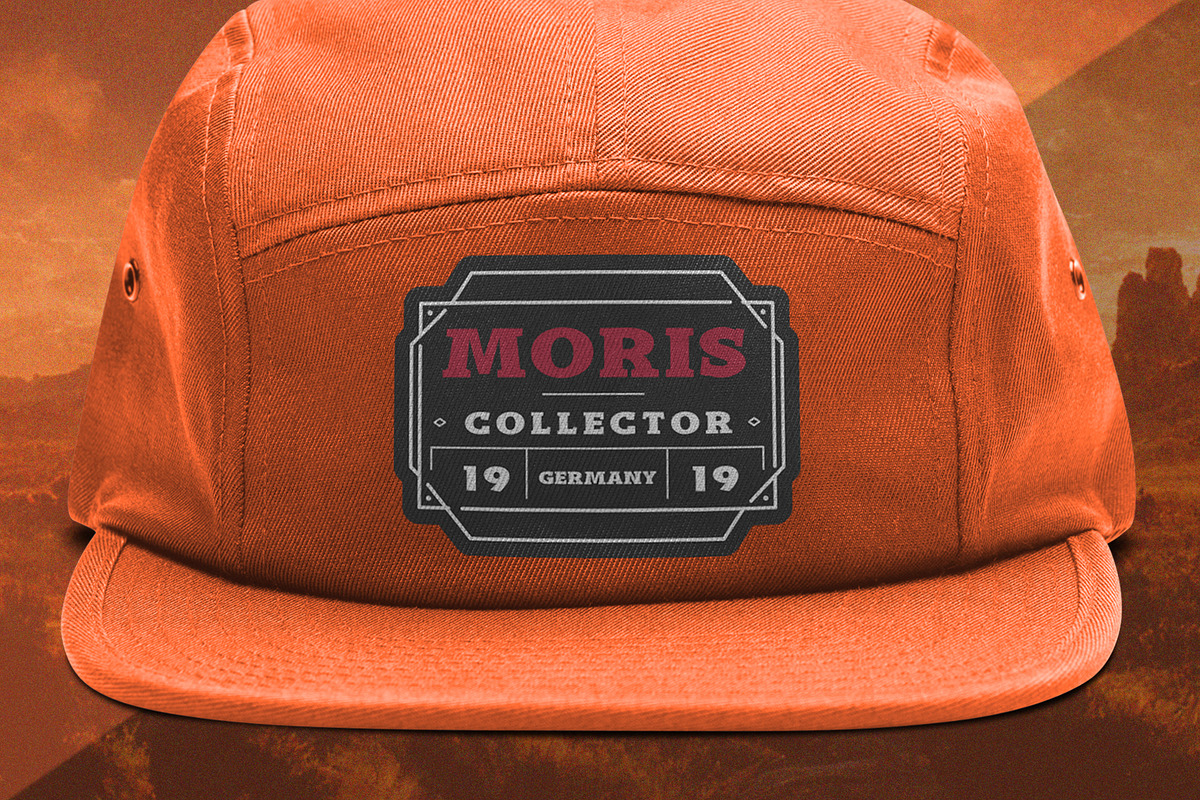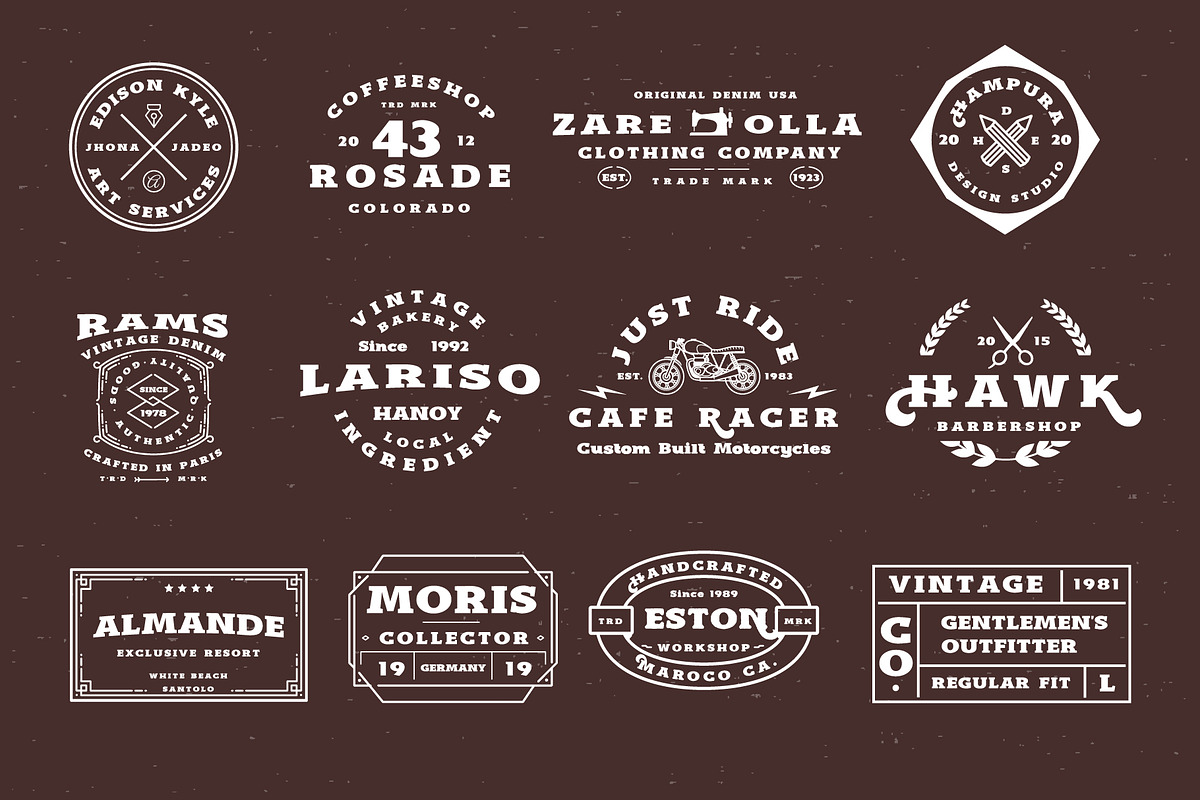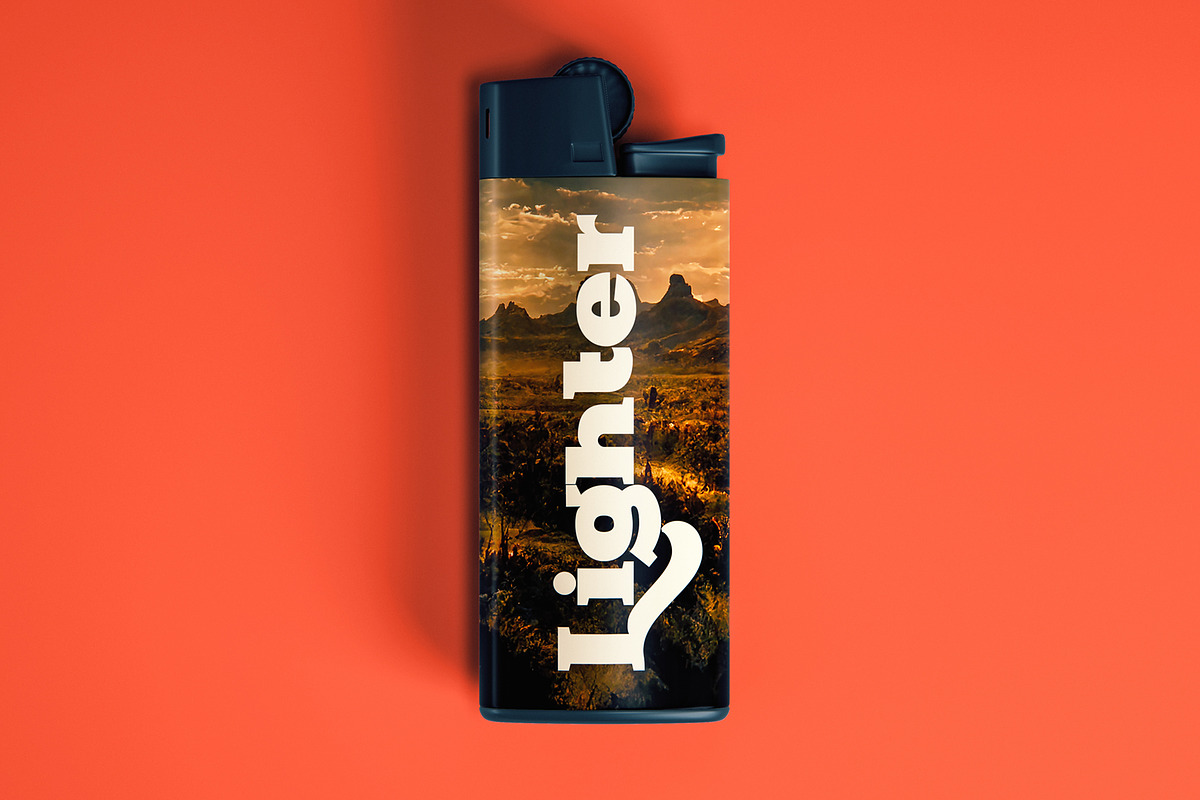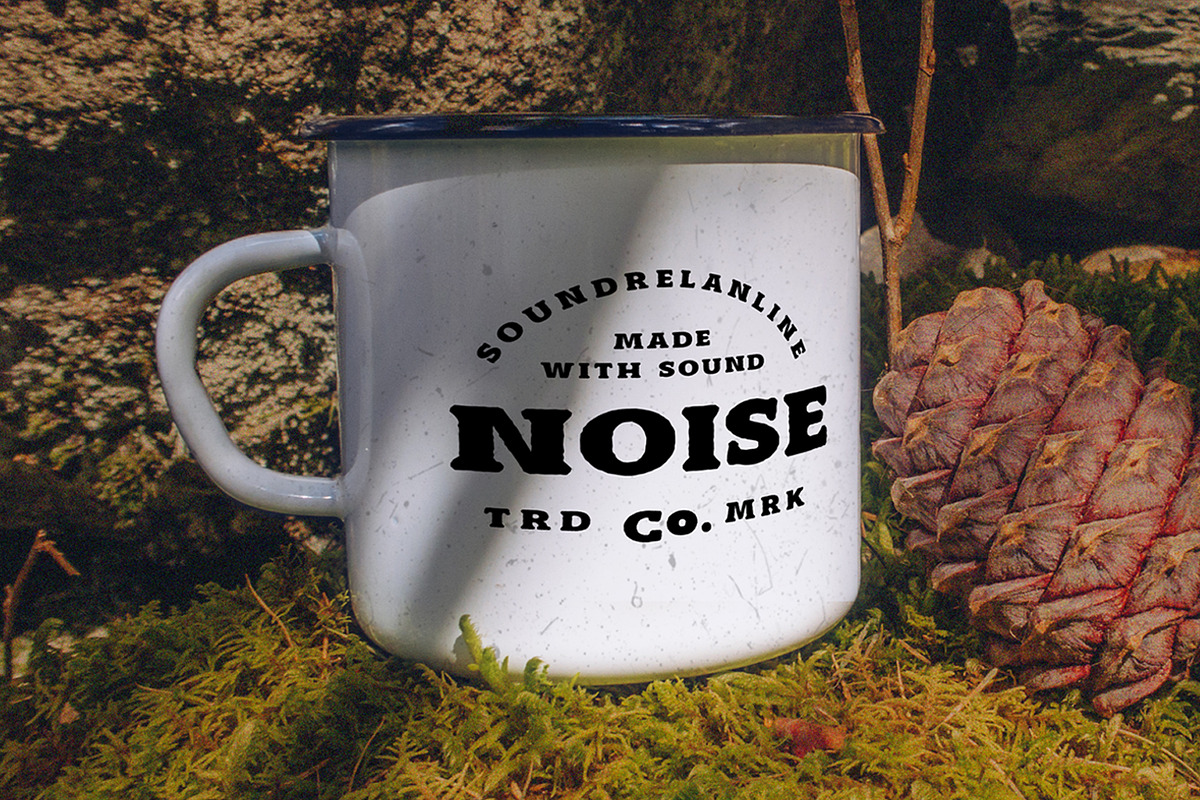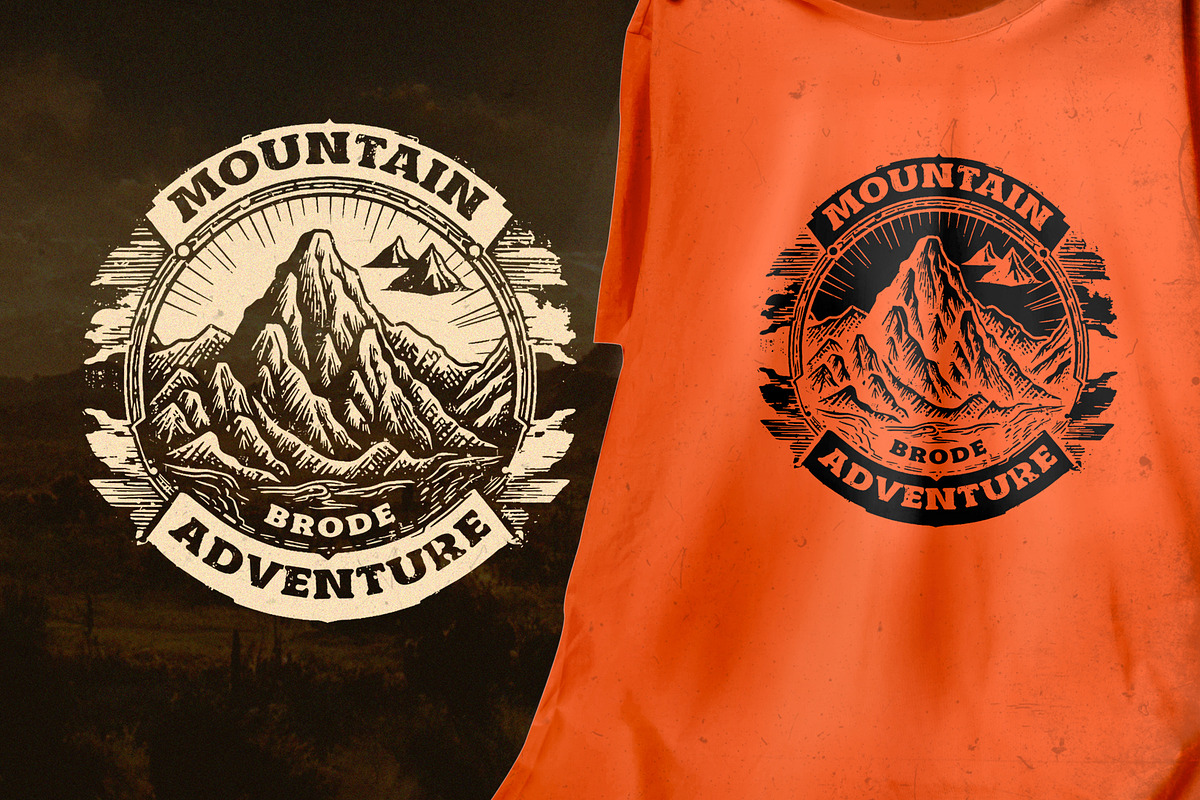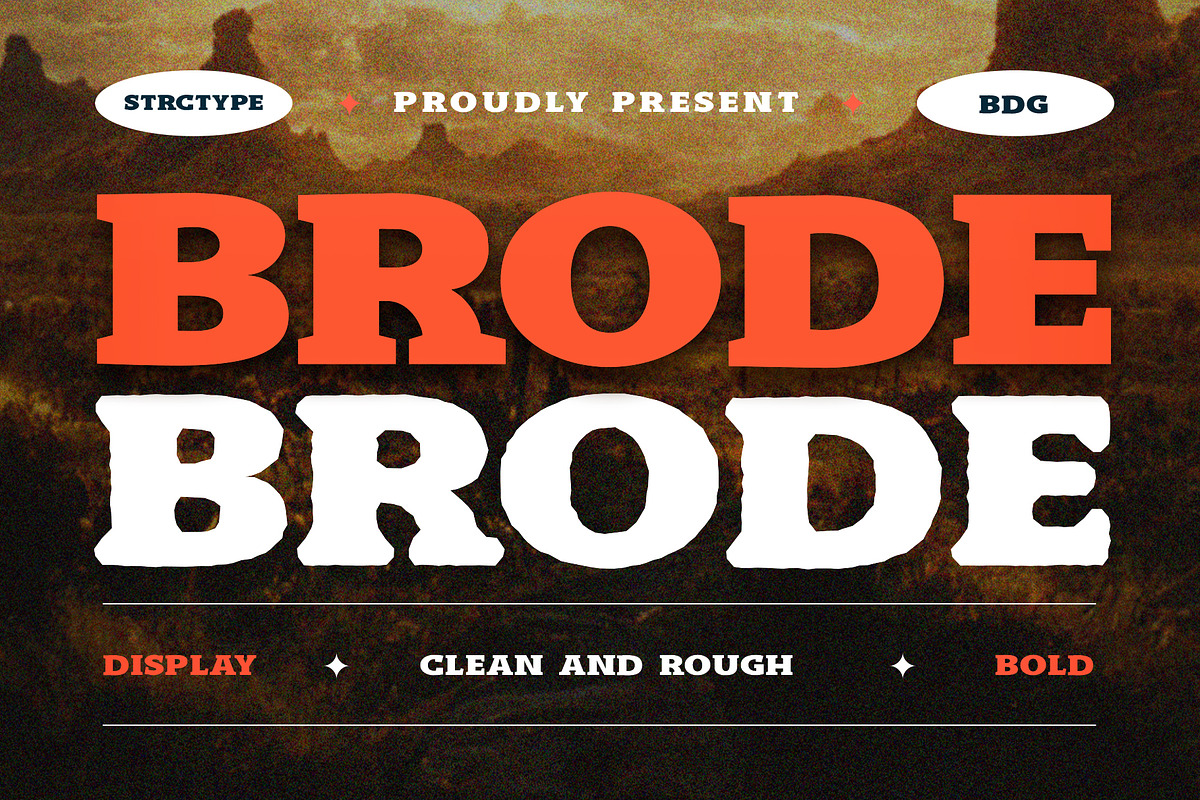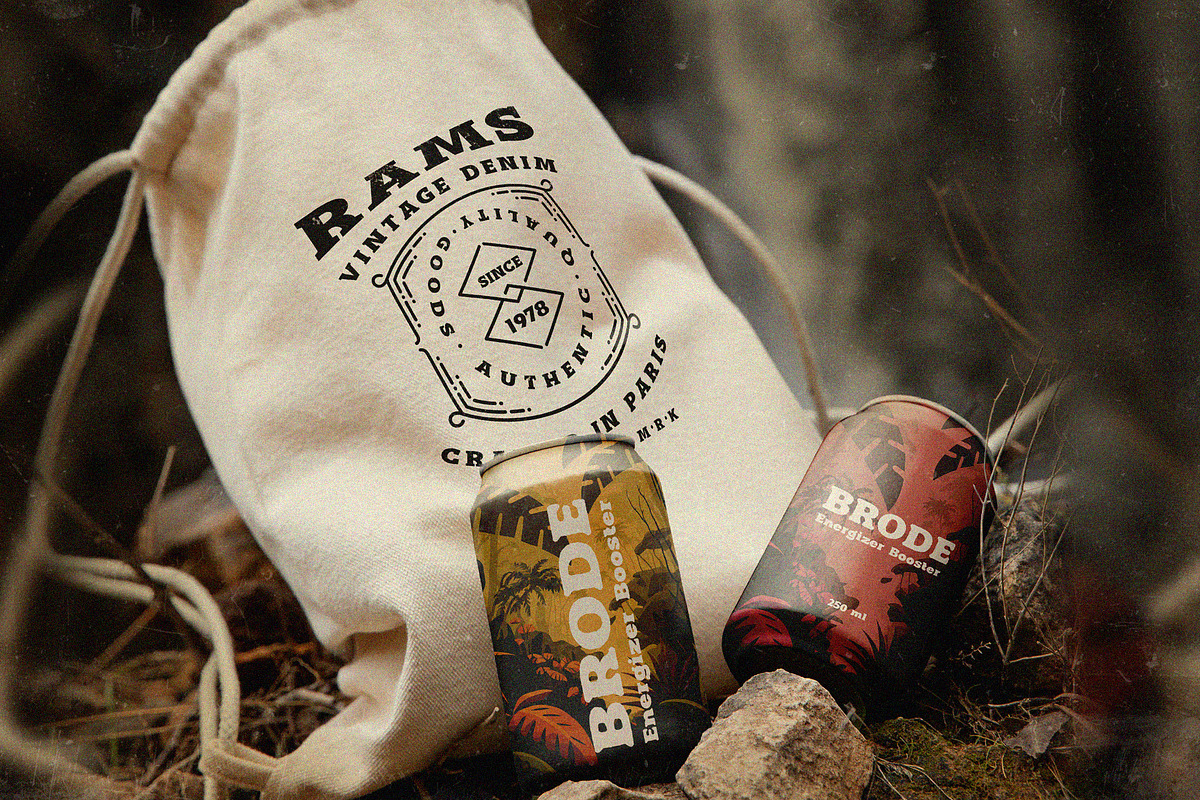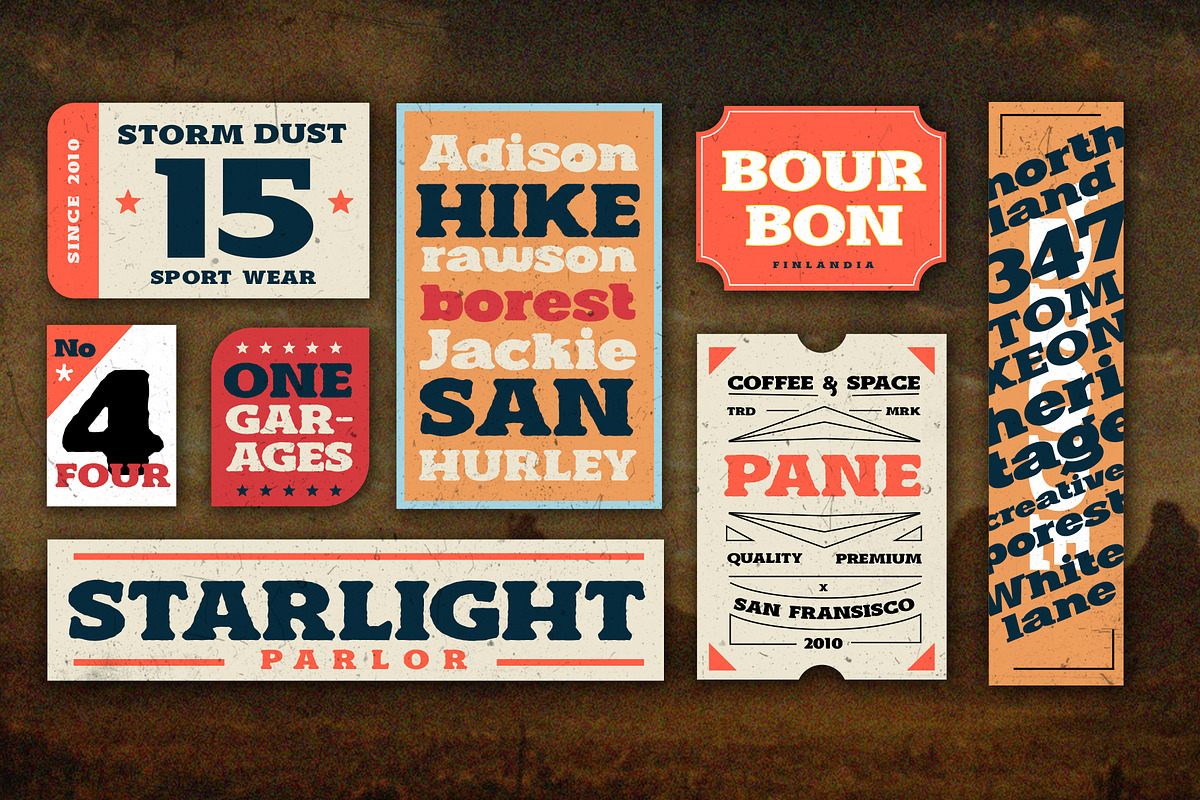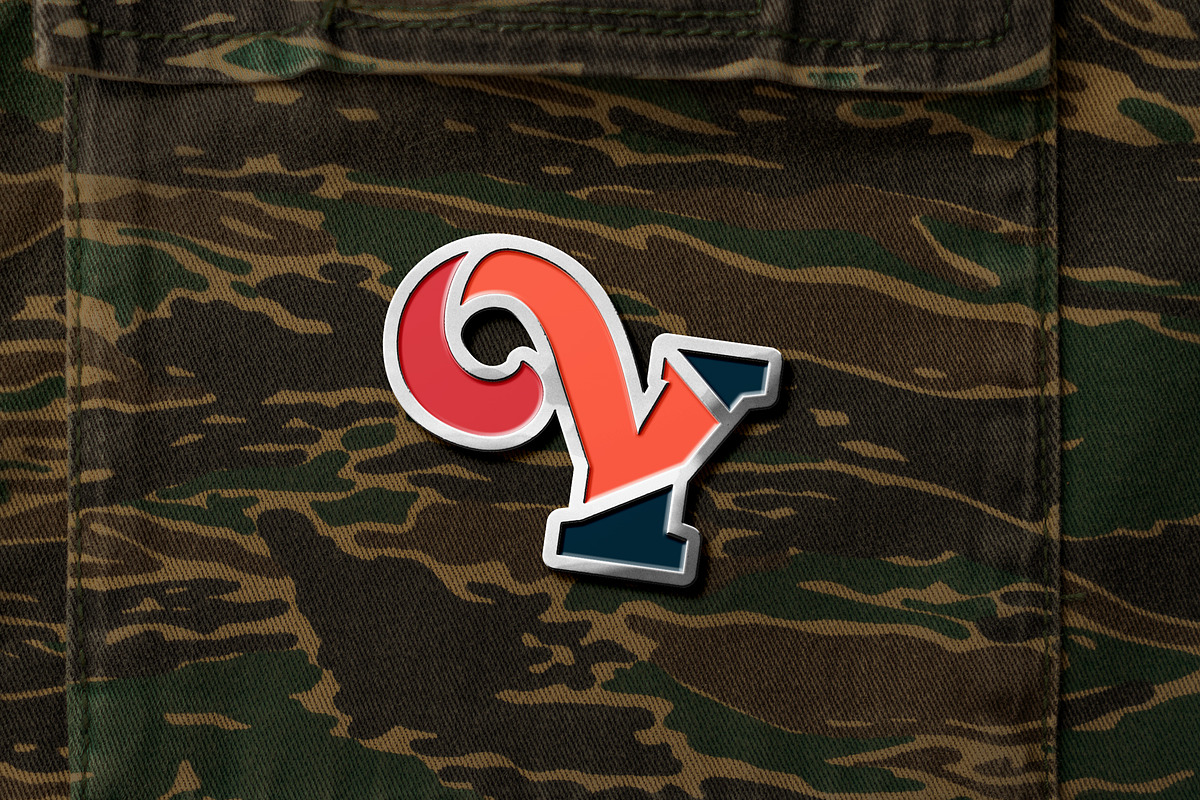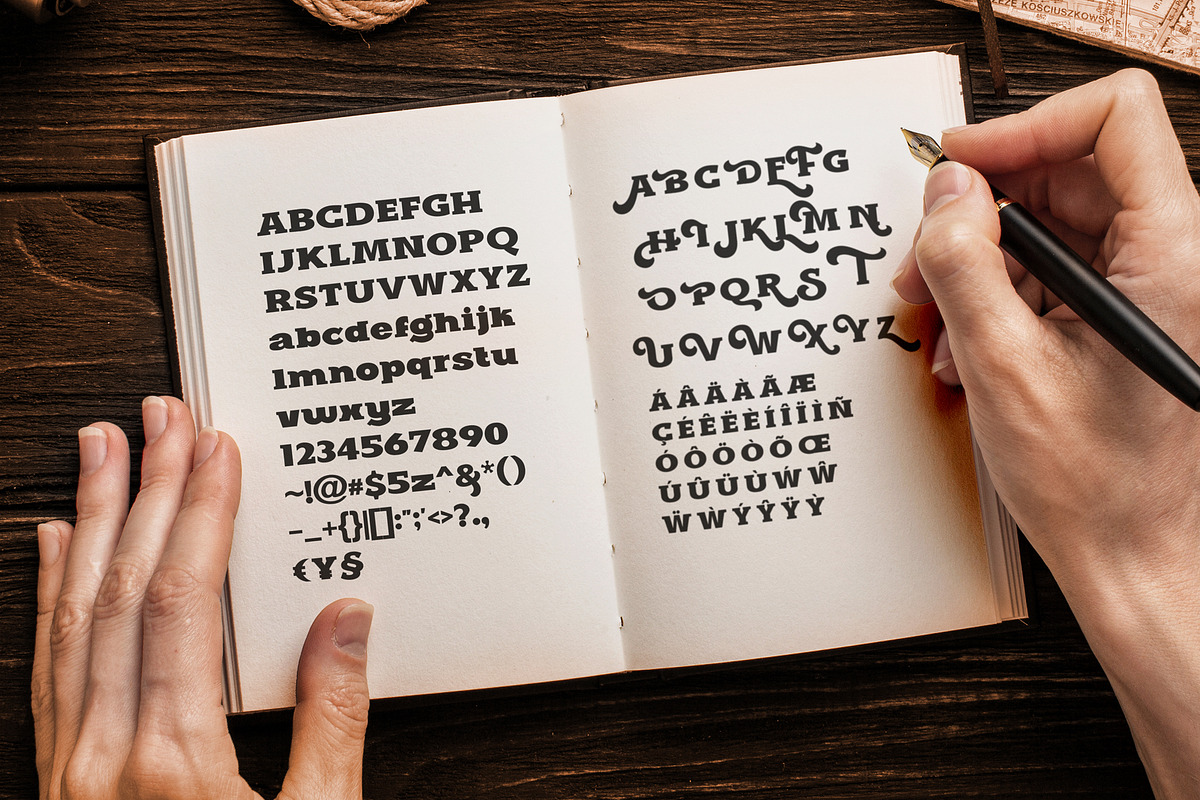
BRODE | Bold Display Slab Serif
Brode is a display slab serif font with 2 style clean and rough ,looks bold and wide also comes with alternative characters that created for adding a altivative uppercase decor of the letters. And it looks right on every character's we've made. Make a statement with this font's strong and prominent characters, ideal for creating a masculine and sophisticated vibe in your designs. Stylistic alternates in this font, allows versatile design options and works. Perfect for headline, logo, branding, emblem, enamel, for a adventure tone, posters, packaging, t shirt, presentationn and much more
- Stylistic Alternate Characters uppercase